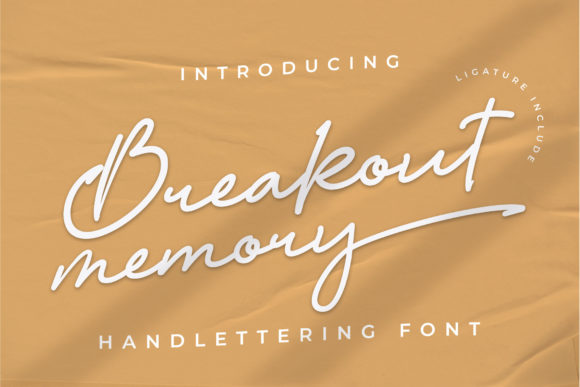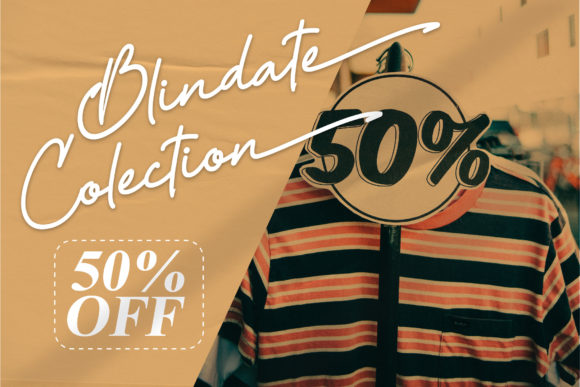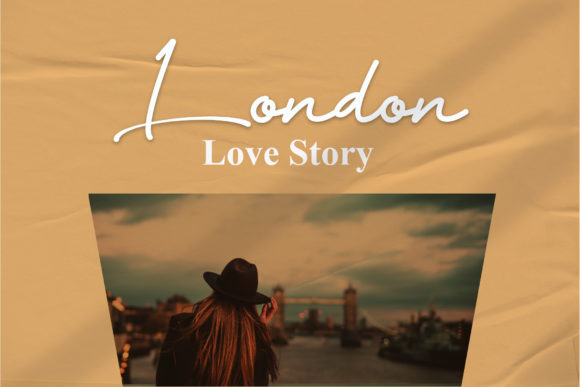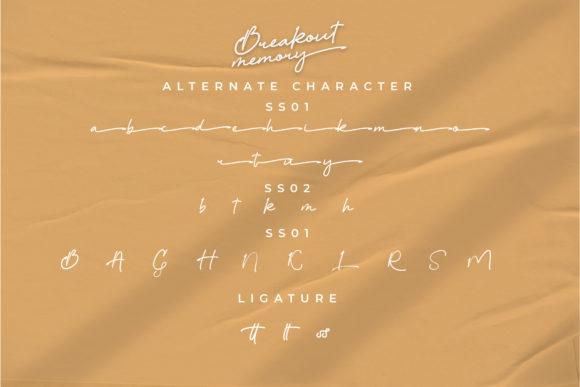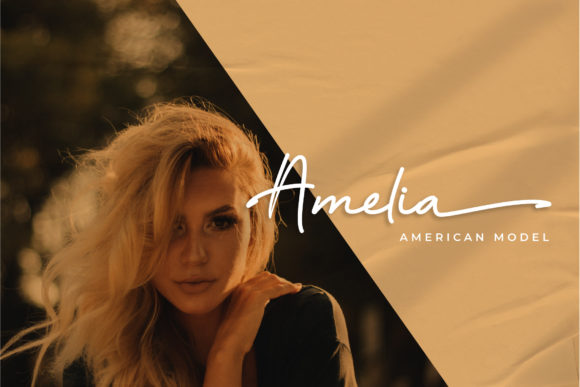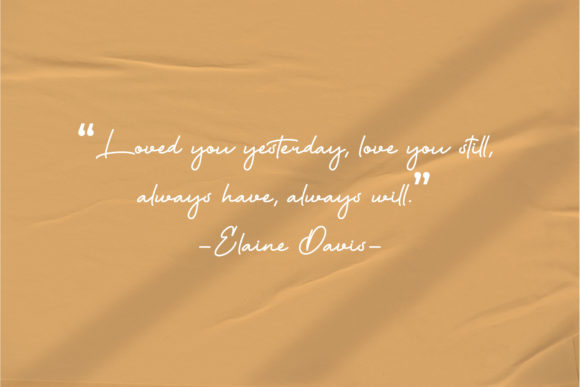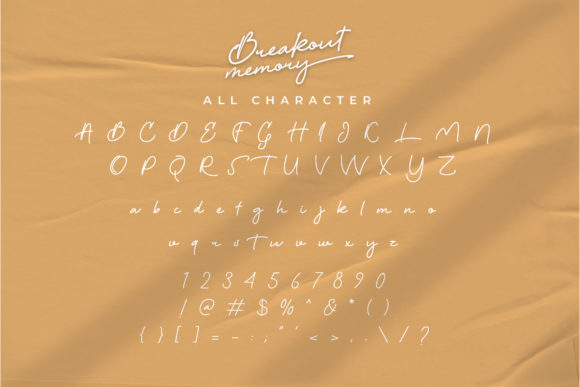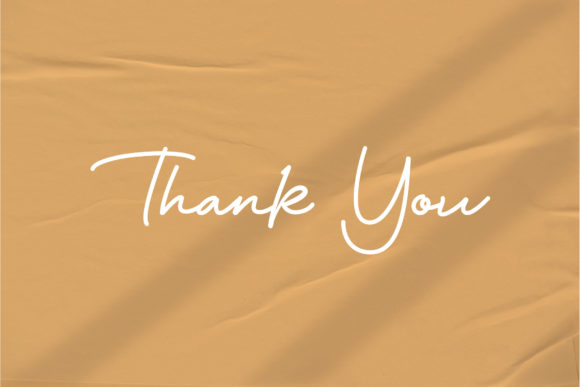
About Breakout Memory Font
Breakout Memory is a stylish and delicate script font. This font was particularly crafted for those who need a beautiful and refreshing look to their designs.